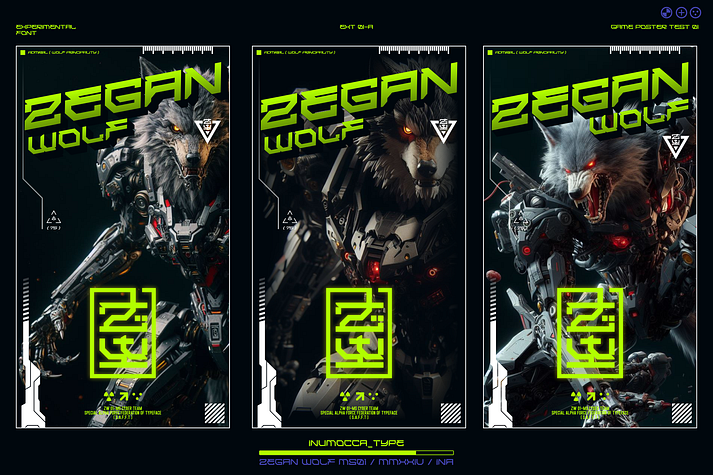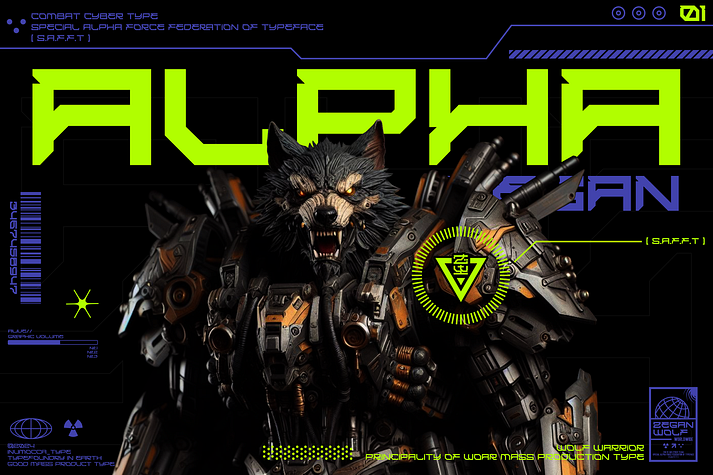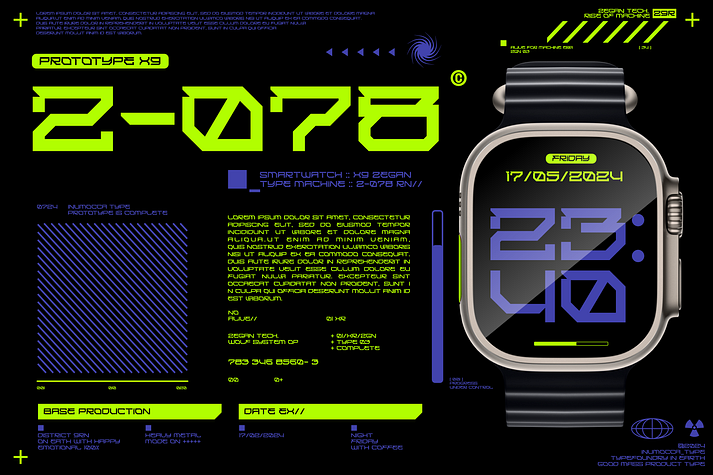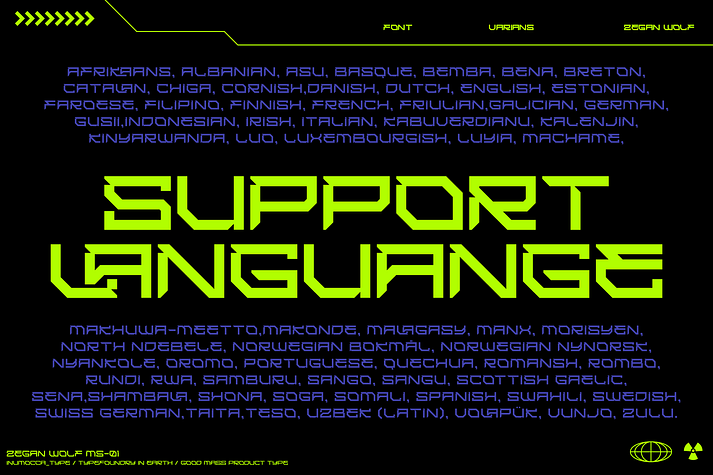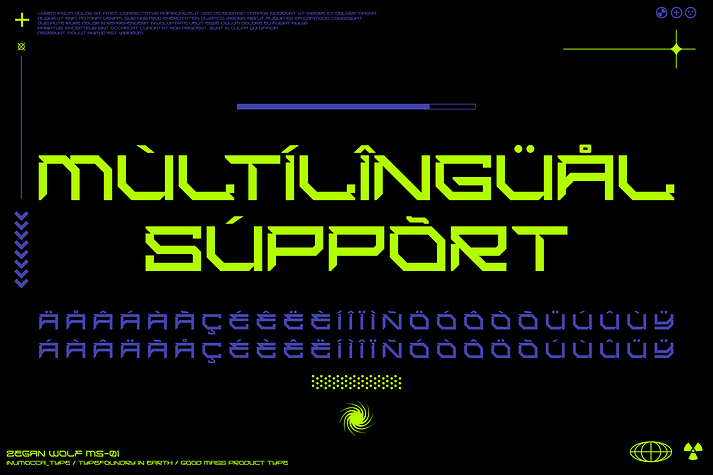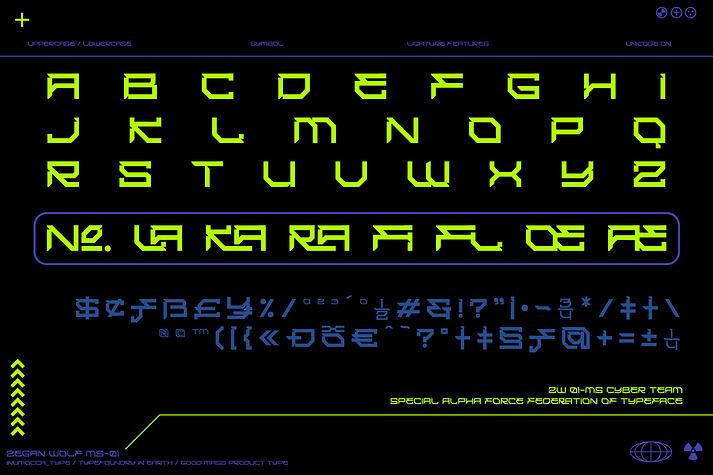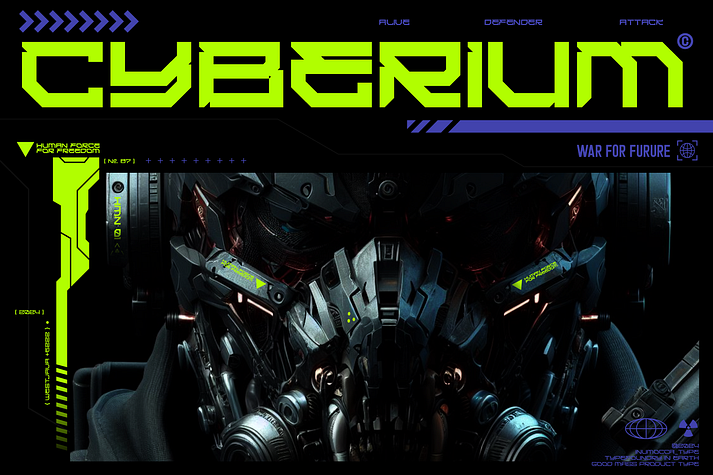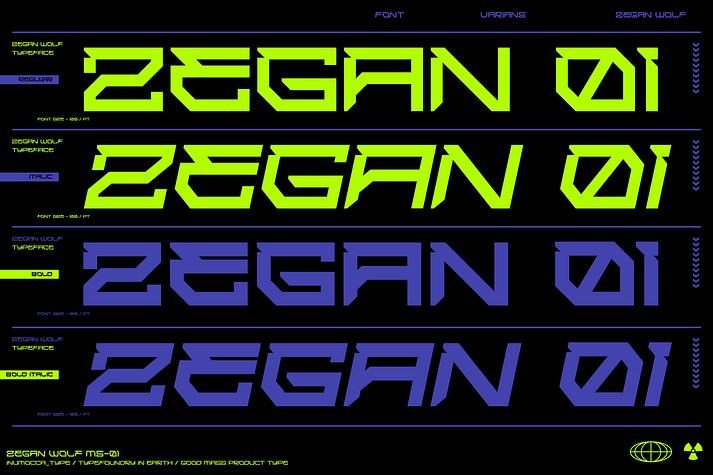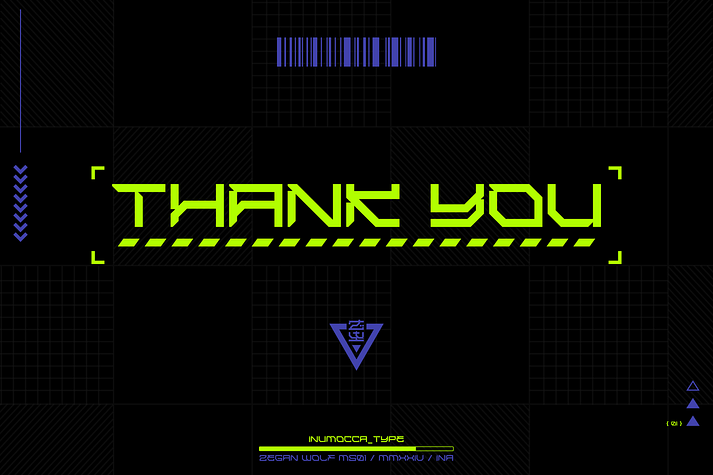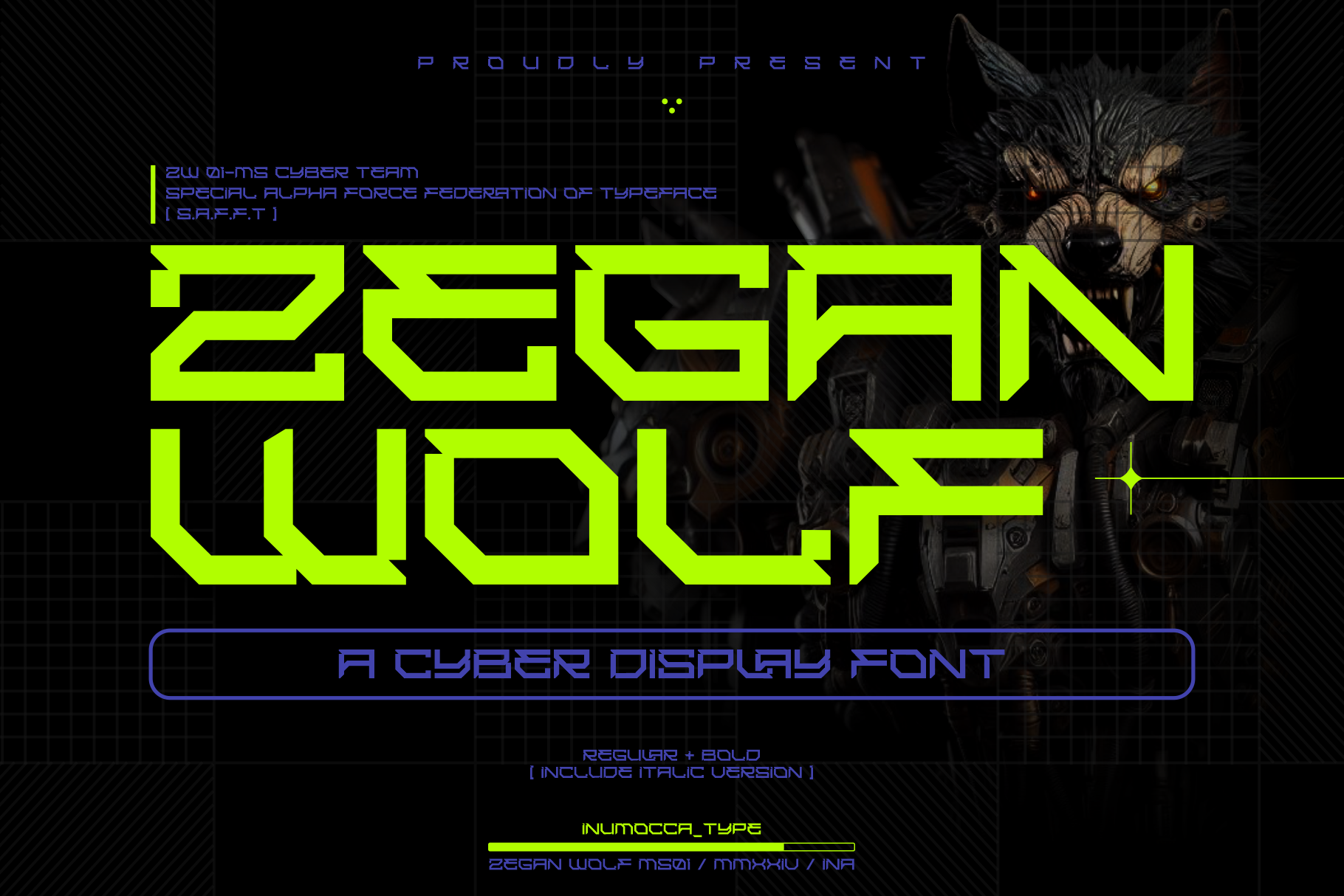
Zegan Wolf
Zegan Wolf is a font family. This typeface has four styles and was published by inumoccatype.
Zegan Wolf a Cyber Display Font Inspiration by Game Poster, futuristic design, Modern Technology, Synthwave, Sci-fi Movie Poster, science and Space Theme. Really great font to covering your Project, like poster Game, mecha poster, logotype, Website Interface, Magazine, Branding, Logos, and more your project design.
• Unique glyphs
• Multilingual Characters
• UPPERCASE
• Lowercase
• Numeric
• Symbol
• Punctuation Character
• PUA encoded
• Ligature Feature